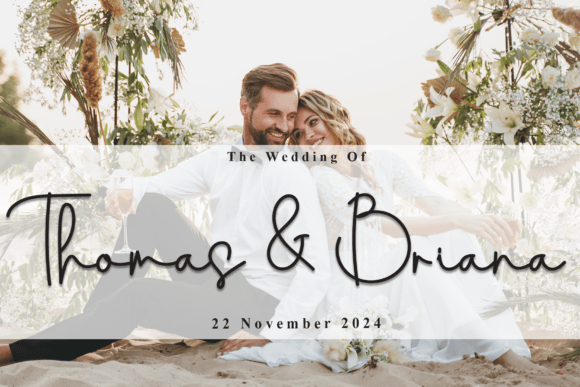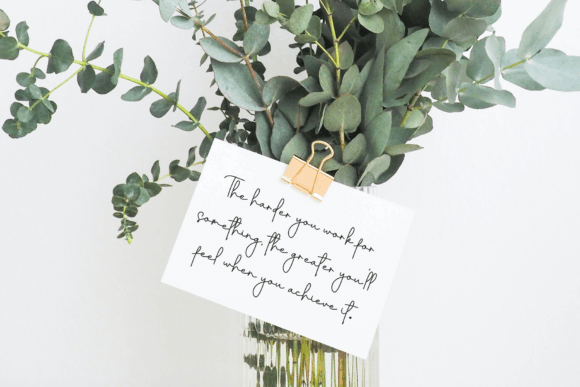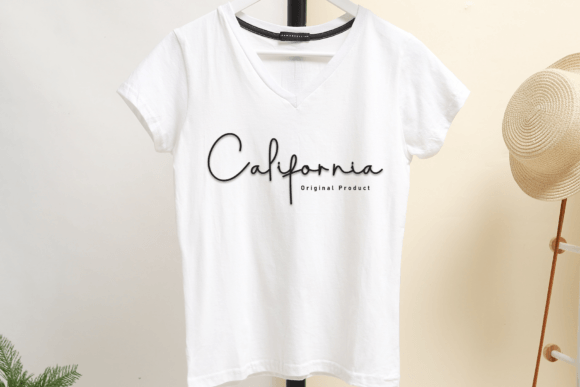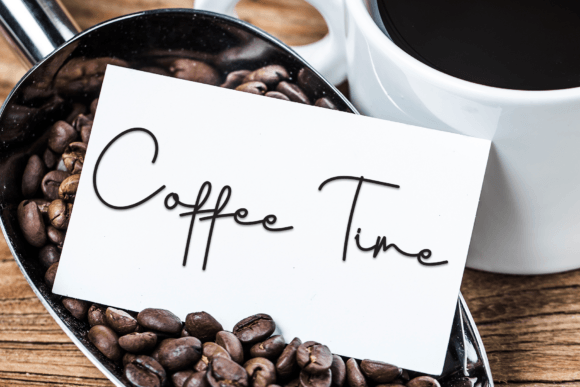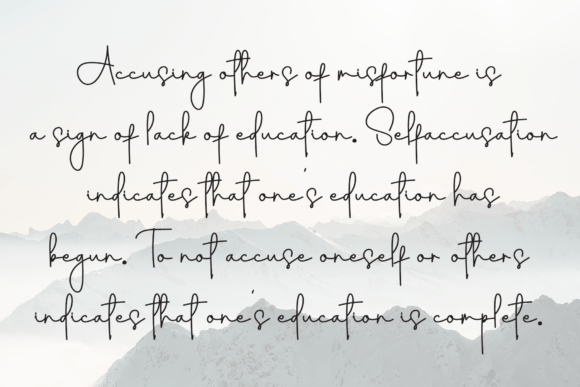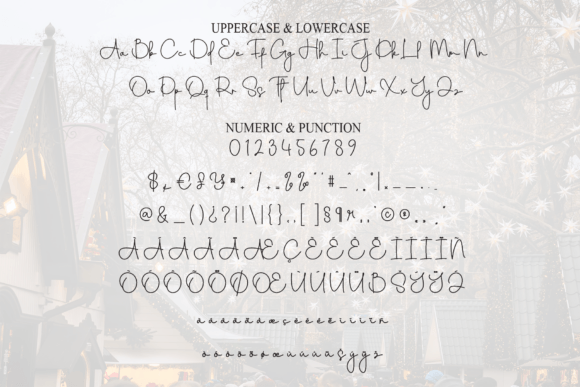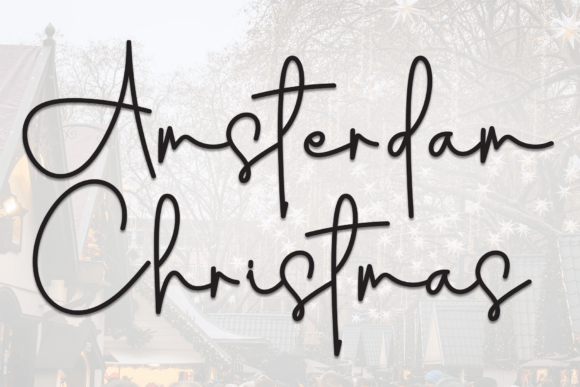
Introducing Amsterdam Christmas Font: The Perfect Holiday Companion for Designers and Crafters
As the holiday season approaches, designers and crafters are on the lookout for the perfect typography to add a touch of festive cheer to their projects. Look no further than the Amsterdam Christmas Font, a beautiful and elegant script font that’s sure to make your holiday designs shine. In this article, we’ll take a closer look at the Amsterdam Christmas Font, its features, and how you can use it to create stunning holiday cards, decorations, and more.
What is Amsterdam Christmas Font?
Amsterdam Christmas Font is a stunning script font that’s specifically designed to capture the magic and wonder of the holiday season. With its elegant, flowing letters and hand-drawn style, this font is perfect for adding a touch of sophistication and whimsy to your holiday designs. Whether you’re creating holiday cards, decorations, or cheerful designs, Amsterdam Christmas Font is the perfect choice.
Key Features of Amsterdam Christmas Font
So, what makes Amsterdam Christmas Font so special? Here are just a few of its key features:
- Elegant, flowing letters: Amsterdam Christmas Font features beautiful, cursive letters that flow smoothly into one another, creating a stunning and cohesive look.
- Hand-drawn style: The font’s hand-drawn style gives it a warm, personal touch that’s perfect for holiday designs.
- Smooth curves: The font’s smooth curves and rounded edges add a touch of whimsy and playfulness to your designs.
- Stylish look: Amsterdam Christmas Font has a stylish, sophisticated look that’s perfect for holiday cards, decorations, and more.
How to Use Amsterdam Christmas Font
Amsterdam Christmas Font is incredibly versatile and can be used in a variety of ways to add a touch of holiday cheer to your designs. Here are just a few ideas to get you started:
- Holiday cards: Use Amsterdam Christmas Font to create stunning holiday cards that are sure to impress your friends and family.
- Decorations: Add a touch of festive cheer to your holiday decorations with Amsterdam Christmas Font.
- Cheerful designs: Use the font to create cheerful designs for social media, blogs, or websites.
- Crafting projects: Amsterdam Christmas Font is perfect for crafters who want to add a personal touch to their holiday projects, such as scrapbooking, paper crafting, or card making.
Tips for Using Amsterdam Christmas Font
Here are a few tips for getting the most out of Amsterdam Christmas Font:
- Experiment with colors: Try pairing Amsterdam Christmas Font with different colors to create a unique and eye-catching look.
- Add embellishments: Add embellishments, such as holly or snowflakes, to give your designs an extra touch of festive cheer.
- Mix and match fonts: Try pairing Amsterdam Christmas Font with other fonts to create a unique and interesting look.
Amsterdam Christmas Font is a beautiful and festive script font that’s perfect for designers and crafters who want to add a touch of holiday cheer to their projects. With its elegant, flowing letters and hand-drawn style, this font is sure to make your holiday designs shine. Whether you’re creating holiday cards, decorations, or cheerful designs, Amsterdam Christmas Font is the perfect choice. So why wait? Download Amsterdam Christmas Font today and start creating your own stunning holiday designs!